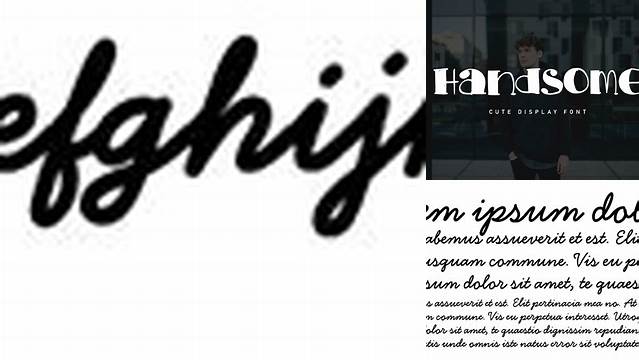
Free Handsome Extra Bold Fonts: Download Now!
Hey guys! Are you on the hunt for a font that really pops? Something that screams boldness and looks absolutely handsome? Well, you've landed in the right spot! We’re diving deep into the world of free, handsome, extra bold fonts that will make your designs stand out from the crowd. Whether you’re working on a poster, a website, or even just a cool social media graphic, the right font can make all the difference. Let's get started and find the perfect typeface to make your project shine!
What Makes a Font "Handsome" and Extra Bold?
Before we jump into the list, let's quickly chat about what exactly makes a font "handsome" and extra bold. It's a bit subjective, sure, but generally, we’re talking about typefaces that have a strong, confident presence. Extra bold simply means the font has a very thick stroke weight, making it super impactful and readable, even from a distance. Handsome, on the other hand, is more about the aesthetic – think clean lines, balanced proportions, and an overall pleasing appearance. The goal is to find a font that combines both power and elegance, creating a visual statement that is both striking and sophisticated. So, keep these qualities in mind as we explore some fantastic options!
Free Handsome Extra Bold Fonts for Headlines
When it comes to headlines, you need a font that grabs attention instantly. A handsome extra bold font is perfect for this! It makes your message clear, concise, and impossible to ignore. Think about the impact you want to make – a bold headline can set the tone for your entire design, so choosing the right font is crucial. We’ll look at some fonts that work wonders in headlines, providing examples of their use and why they're so effective. Remember, a strong headline font is the cornerstone of effective visual communication.
Best Free Extra Bold Fonts for Logos
Your logo is the face of your brand, so it needs to make a statement. Using a handsome extra bold font can give your logo a strong, memorable presence. A bold font conveys confidence and stability, which are essential qualities for any brand. In this section, we'll explore some of the best free extra bold fonts for logos, discussing how different typefaces can evoke different emotions and associations. We’ll also consider the importance of readability and versatility when choosing a logo font, ensuring your brand message is clear and impactful.
Free Handsome Extra Bold Fonts for Posters
Posters need to be eye-catching, and what better way to achieve that than with a handsome extra bold font? These fonts ensure your message is seen from afar, making them perfect for grabbing attention in crowded spaces. We'll showcase fonts that work exceptionally well for poster designs, discussing how to pair them with visuals for maximum impact. We’ll also look at the importance of color and contrast in poster design, ensuring your font stands out and your message is clear.
Free Extra Bold Fonts for Web Design
In the digital world, a handsome extra bold font can enhance your website's visual appeal and user experience. Bold fonts are great for headings and calls to action, guiding visitors through your site and highlighting key information. We'll explore fonts that are not only visually striking but also web-friendly, ensuring they load quickly and display correctly on all devices. We’ll also discuss the importance of typography in web design, ensuring your website is both beautiful and functional.
Modern Free Handsome Extra Bold Fonts
If you're aiming for a contemporary look, a modern handsome extra bold font is the way to go. These fonts often feature clean lines, geometric shapes, and a minimalist aesthetic, perfect for projects that need a touch of sophistication. We’ll dive into some of the trendiest modern fonts available for free, discussing how they can elevate your designs and give them a cutting-edge feel. We’ll also explore the use of negative space and balance in modern typography.
Classic Free Extra Bold Fonts
Sometimes, you need a font that has a timeless appeal. Classic handsome extra bold fonts are just that – fonts that have stood the test of time and continue to look great in a variety of contexts. These fonts often have a traditional feel, but their boldness adds a contemporary twist. We'll look at some classic fonts that have been reimagined in extra bold weights, offering both familiarity and impact. We’ll also discuss the history and evolution of these fonts, understanding their enduring appeal.
Vintage Free Handsome Extra Bold Fonts
For a touch of nostalgia, a vintage handsome extra bold font can be a fantastic choice. These fonts often evoke a sense of history and craftsmanship, adding character and charm to your designs. We'll showcase fonts that have a vintage or retro aesthetic, discussing how they can be used to create unique and eye-catching designs. We’ll also explore the use of texture and distress in vintage typography.
Futuristic Free Extra Bold Fonts
Looking to the future? A futuristic handsome extra bold font can give your project a cutting-edge, innovative feel. These fonts often feature sharp angles, geometric shapes, and a sense of forward motion. We'll explore some of the most exciting futuristic fonts available for free, discussing how they can be used to create designs that look like they're from tomorrow. We’ll also discuss the use of typography in science fiction and fantasy design.